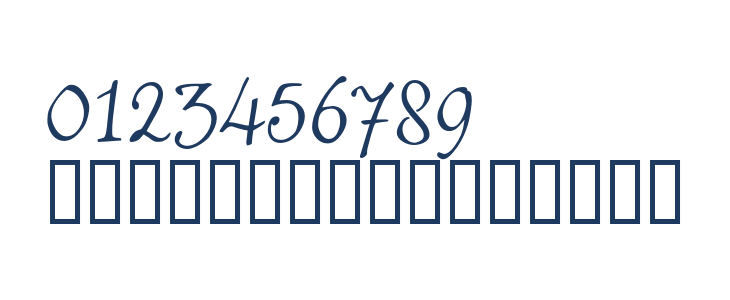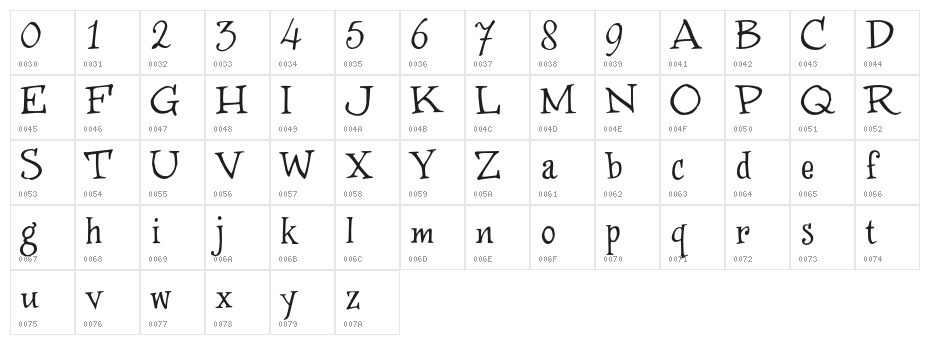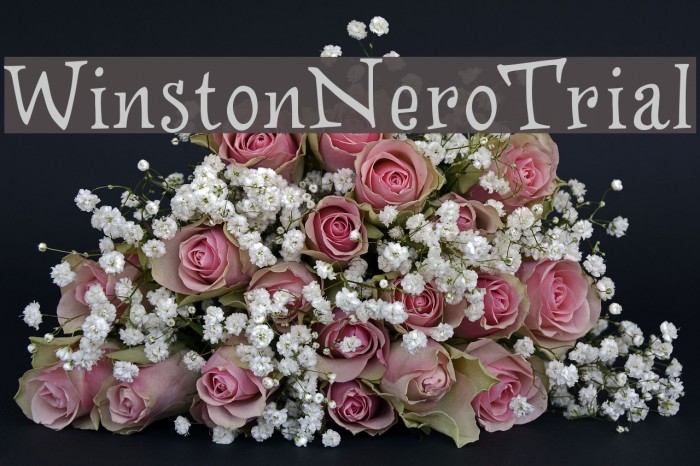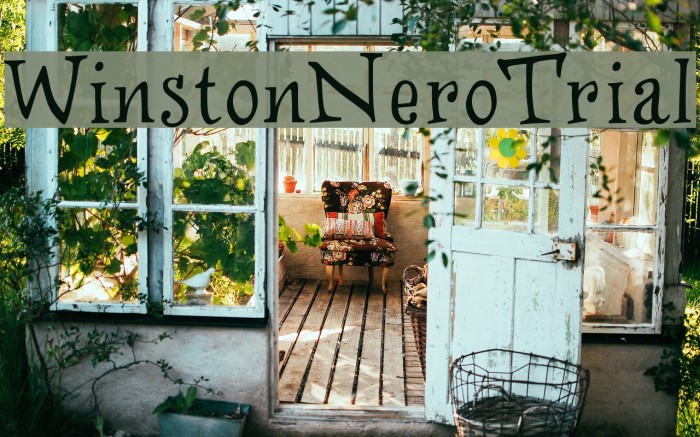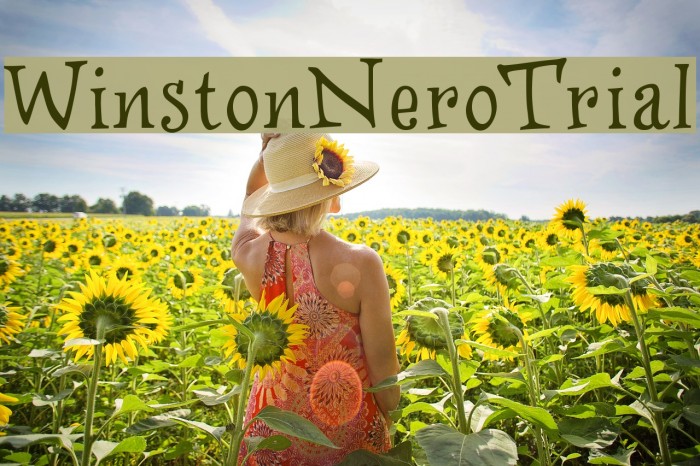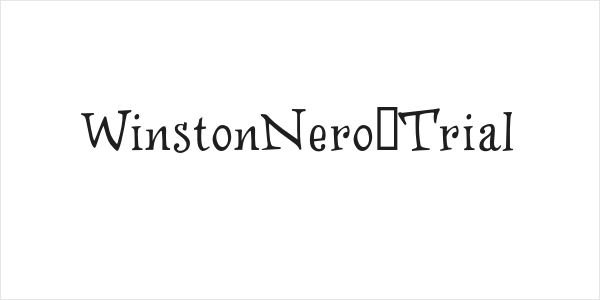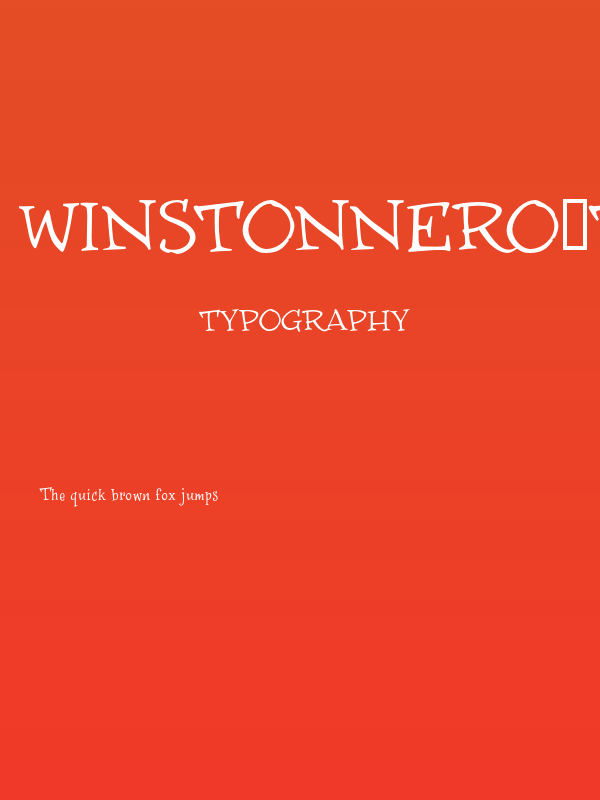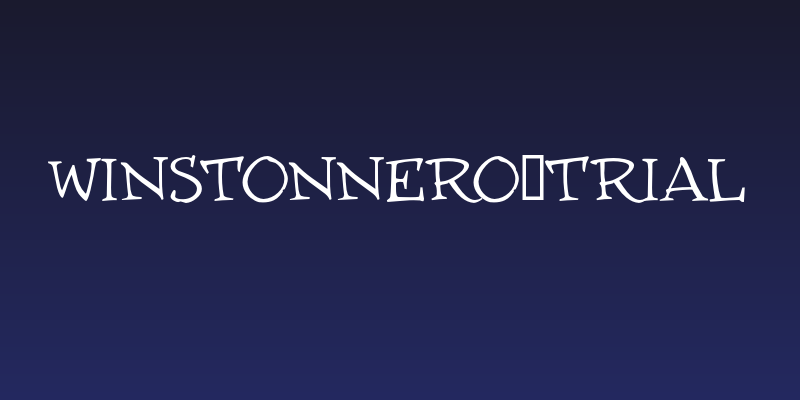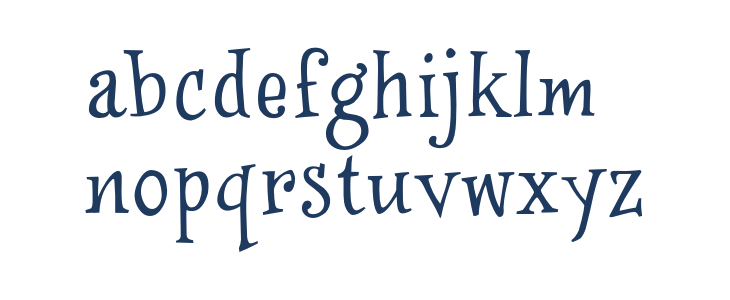
WinstonNero_Trial Font
WinstonNero_Trial Description
This font exhibits a playful and whimsical style, characterized by its irregular, hand-drawn appearance. The letters have a slightly uneven baseline, adding to its casual and informal feel. The strokes are varied, with some letters featuring thicker downstrokes and thinner upstrokes, creating a medium contrast. The overall design is reminiscent of handwriting, with a touch of elegance and charm. The uppercase letters are bold and prominent, while the lowercase letters maintain a consistent flow. The numbers and special characters follow the same playful aesthetic, making this font suitable for creative and artistic projects.
| Overall Style | Whimsical |
| Use Case | Creative projects, artistic branding, informal communications. |
| Proposed Projects | Ideal for children's books, greeting cards, creative posters, and artistic branding. |